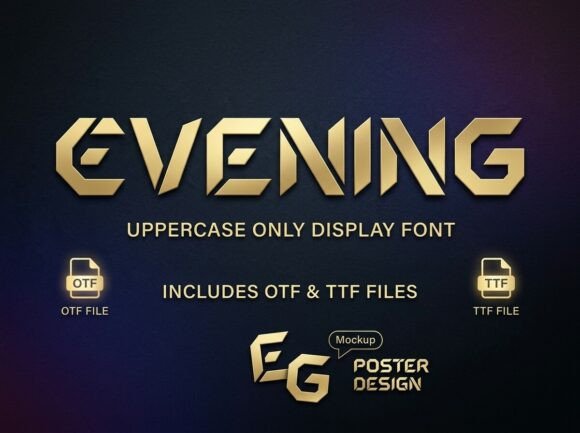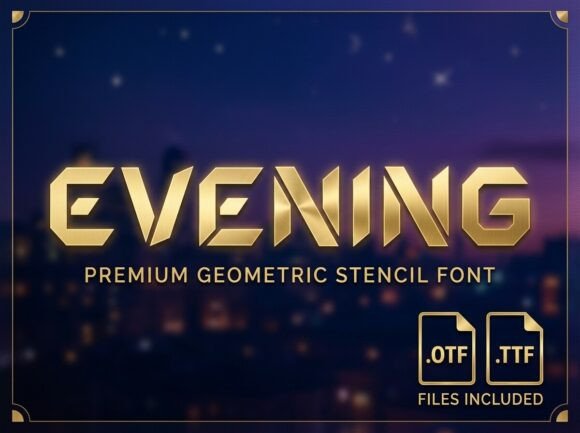
Unlocking the Future of Typography: A Deep Dive into Evening Font
I’ll never forget the late nights spent working on a high-stakes eSports branding project, desperately searching for the perfect font to capture the essence of a cutting-edge gaming team. The brief was clear: the font had to be bold, futuristic, and instantly recognizable. After scouring the internet and testing countless typefaces, I stumbled upon Evening – a game-changing, HD-quality futurist font that exceeded my expectations in every way. In this article, I’ll share my journey with Evening, its capabilities, and how you can harness its power for your next design project.
First Impressions: What Makes Evening Stand Out
Evening is more than just a font – it’s an experience. This powerhouse typeface boasts bold, angular letterforms with a polished “brushed-titanium” finish and glowing, neon-beveled edges. Its “cyber-industrial” soul and professional weight make it the premier choice for eSports team logos, cinematic sci-fi titles, high-end tech hardware branding, and commanding “metaverse-ready” social media headers.
- ✨ Stunning Visuals: Evening’s unique blend of bold, angular shapes and glowing neon edges creates a mesmerizing effect that’s hard to ignore.
- ✅ Versatility: From eSports branding to cinematic titles, Evening’s adaptability knows no bounds.
- 💻 Professional Weight: This font exudes confidence and sophistication, making it perfect for high-end projects.
⚠️ While Evening is an incredible font, it’s essential to note that its bold style might not be suitable for body text or smaller font sizes. Additionally, some users might find the glowing edges a bit too attention-grabbing for certain design contexts.
🤔 One minor limitation is that Evening’s OpenType features might require a bit of experimentation to master. However, the payoff is well worth the effort.
The Story Behind Evening: Designer Inspiration
According to its creators, Evening was inspired by the intersection of technology and industrial design. The goal was to craft a font that embodied the spirit of innovation and forward-thinking, while maintaining a sense of sophistication and professionalism. The result is a typeface that’s both visually striking and highly versatile.
Q: What makes Evening suitable for eSports branding?
A: Evening’s bold, futuristic design and professional weight make it an ideal choice for eSports teams looking to establish a strong visual identity.
Q: Can I use Evening for body text or smaller font sizes?
A: While Evening is an incredible font, its bold style might not be suitable for body text or smaller font sizes. It’s best used for headlines, titles, or commanding social media headers.
Q: Does Evening support OpenType features?
A: Yes, Evening supports OpenType features, including stylistic alternates, glyphs, and more. Experiment with these features to unlock the font’s full potential.
Q: Is Evening suitable for print design?
A: Absolutely! Evening’s bold, high-contrast design makes it suitable for a wide range of print applications, from business cards to billboards.